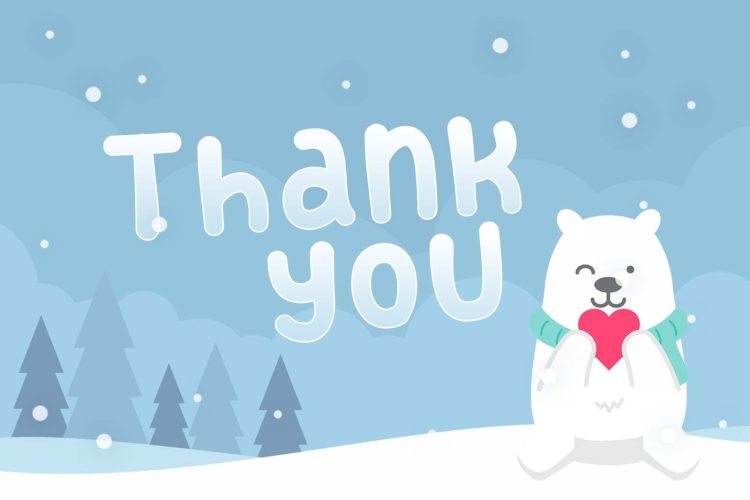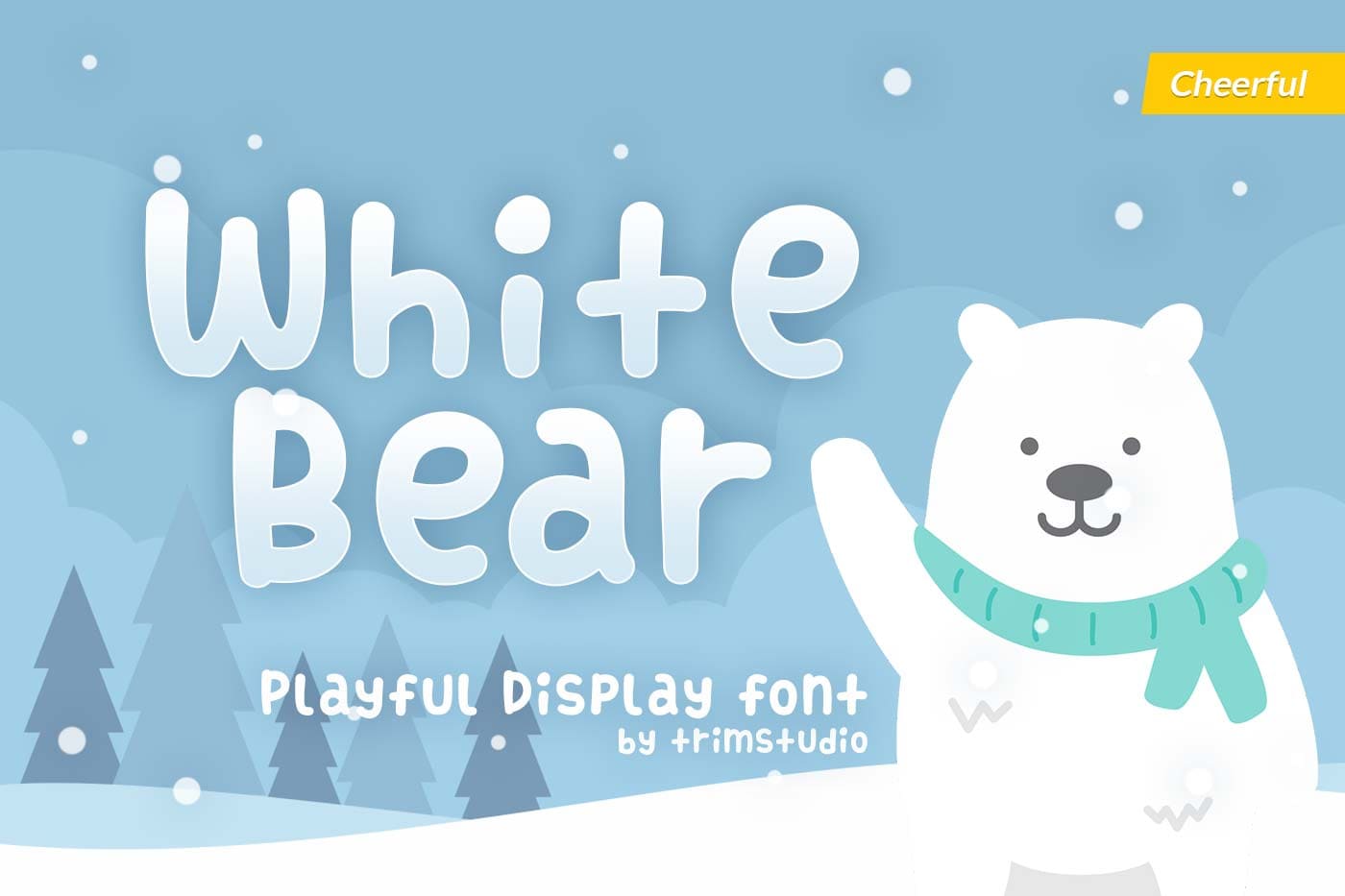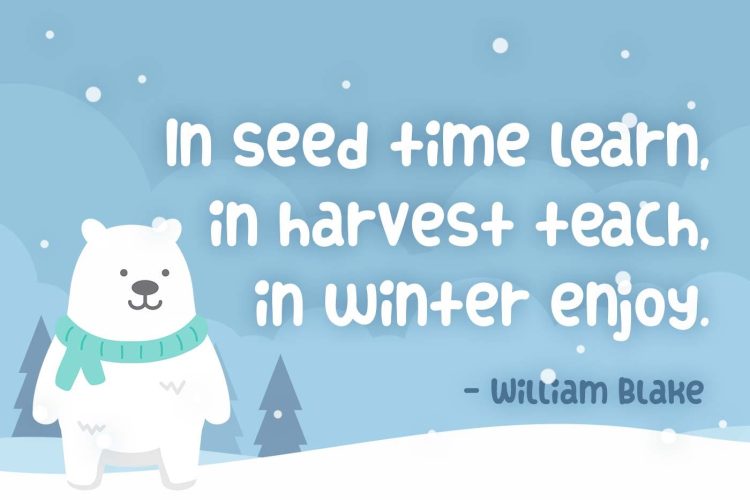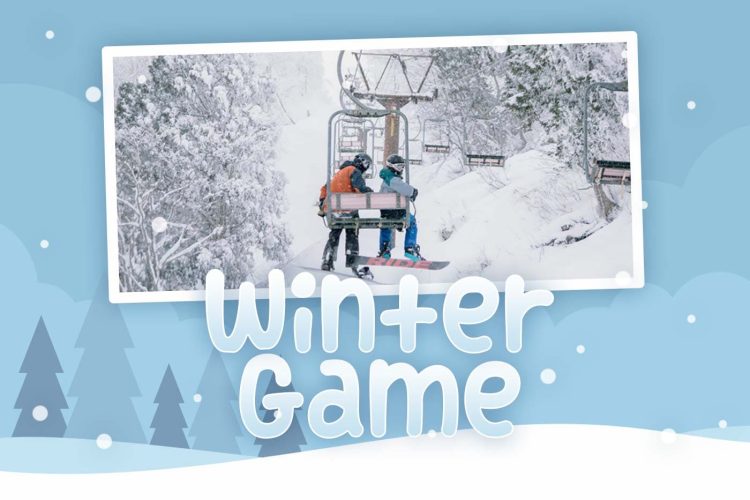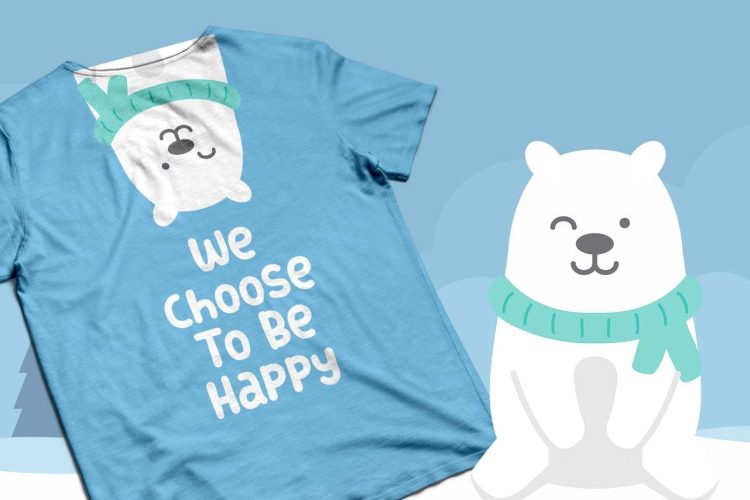
White Bear is a sweet and cool display font with a whimsical feel. Use this amazing font to elevate any winter craft!Trimstd is amazing
White Bear – Cool and Playful Display Font